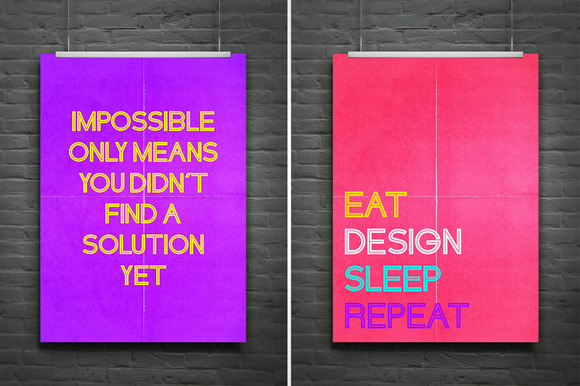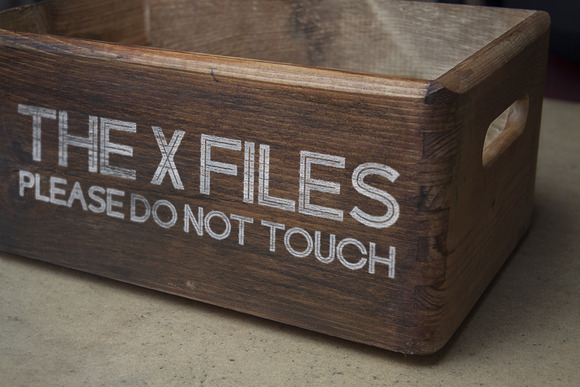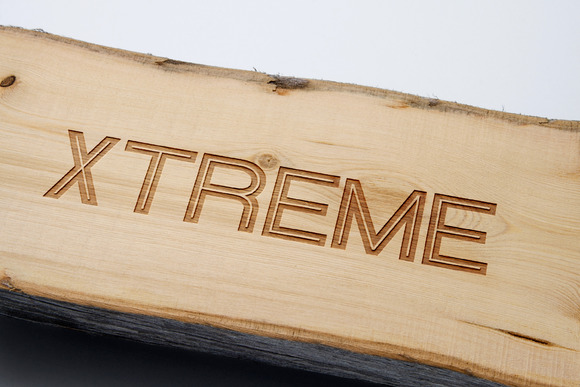
Introduction to Henerale Outline Font
Henerale Outline is a geometric outline font.
It can be used for various purposes such as headings, logos, badges, book covers, invitations, headlines and much more .
Key Features of Henerale Outline Font